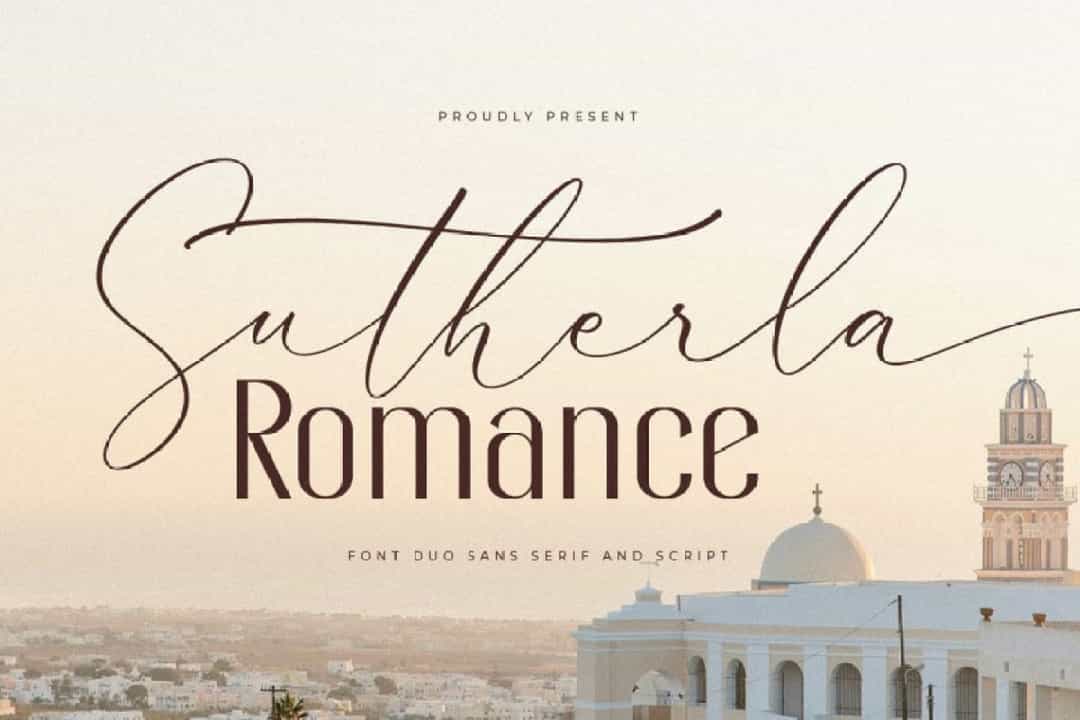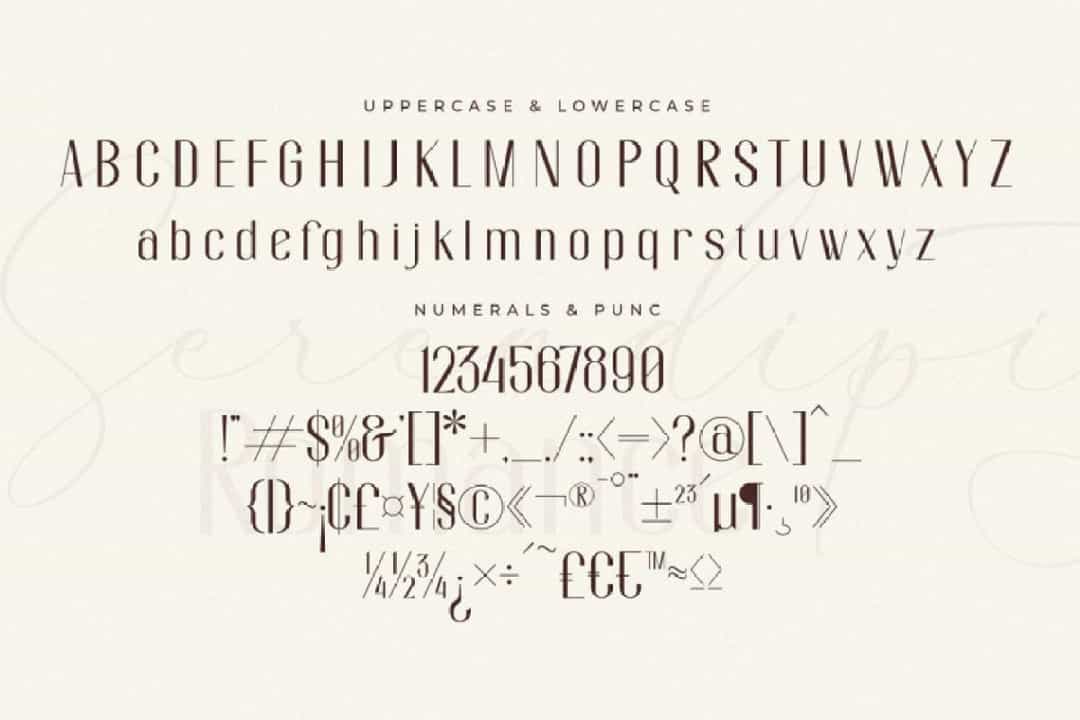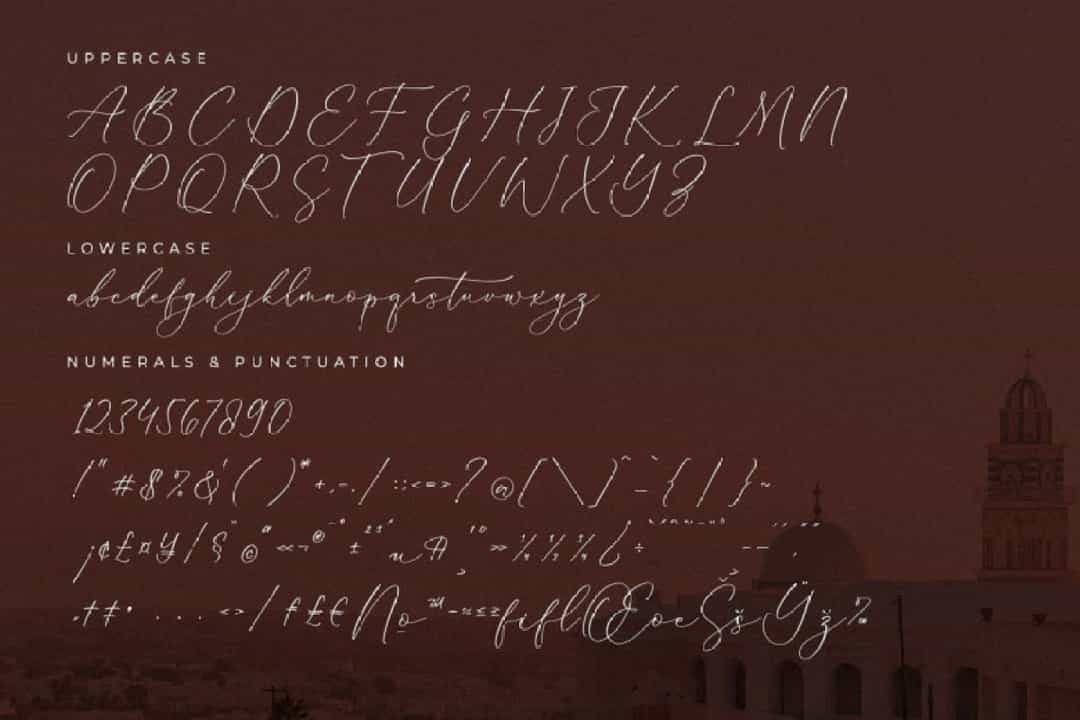
Sutherla Romance is an elegant sans serif and script font with its own distinct design and modern appearance, perfect for creating elegant logos, movie or book name designs, fashion brand clothing designs, magazine letters and quotes among many other applications.